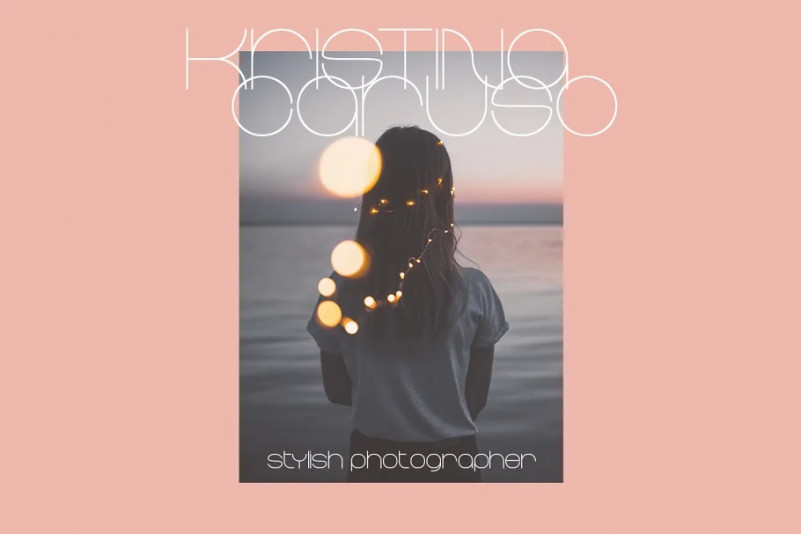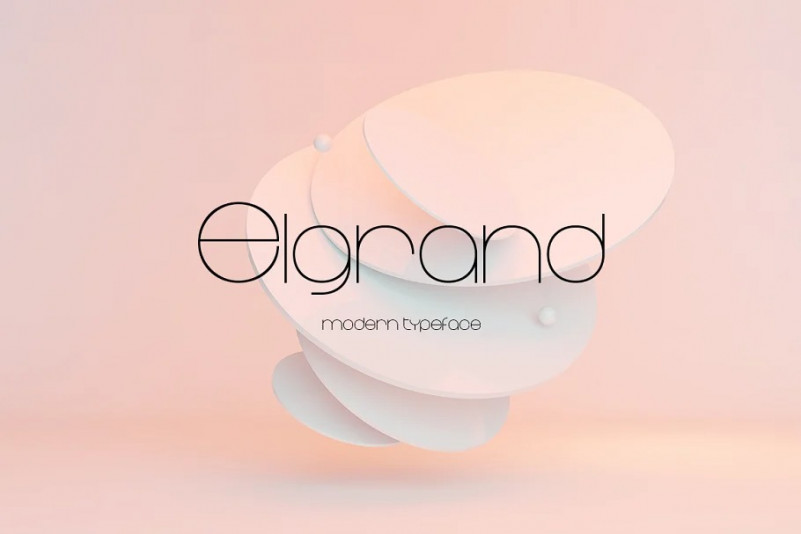
Elgrand Font
Elgrand Sans Serif Font, This font has an elegant and distinct style that makes it visually different from many other fonts. It makes your design stand out from the rest.This font will give a unique touch to your design. Never put off using this cool font, as it will help you give extra zest to all kinds of work.